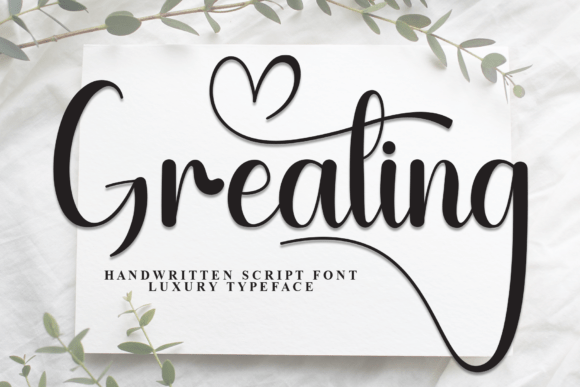
The Perfect Script for Your Masterpiece: Unveiling Greating Font
As a designer, have you ever been in a rush to meet a deadline, only to find yourself pouring over a blank page, searching for the perfect font to bring your vision to life? You know the feeling – it’s a mix of frustration and excitement, as you flip through your font library, hoping to stumble upon that elusive ‘aha’ moment. For many designers, this moment comes in the form of a beautiful script font that elevates their design from ordinary to extraordinary.
Enter Greating Font, a stunning handwritten script font that exudes elegance and charm. Its fluid, graceful strokes make it perfect for branding, invitations, and stationery, adding a personal and sophisticated touch to any design. With its smooth curves and natural flow, Greating Font creates a timeless, refined look that’s sure to impress.
Key Features of “Greating Font”
- Unique Characteristics: Features a unique blend of modern and vintage elements, making it perfect for designs that require a touch of elegance and sophistication.
- Kerning and Ligatures: Includes advanced kerning and ligature features to ensure smooth and even text spacing.
Greating Font Review
As a designer, I’ve had the chance to work with Greating Font, and I must say it’s a mixed bag. Let’s dive into what works well and what doesn’t.
Unique Design: Greating Font offers a distinctive and modern design that can add a touch of elegance to any project.
High-Quality Renditions: The font is available in various weights and styles, ensuring it looks crisp and clear on both digital and print media.
Limited Character Set: The font’s character set is not as comprehensive as some other popular fonts, which may cause issues for designers who need to use specific characters.
Not Ideal for Small Text: Due to its modern design, Greating Font may not be the best choice for small text or body copy, as it can be difficult to read.
Greating Font is a solid choice for designers looking for a unique and high-quality font. While it has some limitations, its strengths make it a valuable addition to any design project. However, it’s essential to weigh its pros and cons before making a final decision.
Greating Font is ideal for creating eye-catching headings, titles, and quotes. Use it to add a unique touch to your designs and stand out from the crowd.
Some common use cases include:
- Creating social media graphics and posts.
- Designing posters, flyers, and brochures.
- Developing branding materials, such as business cards and letterheads.